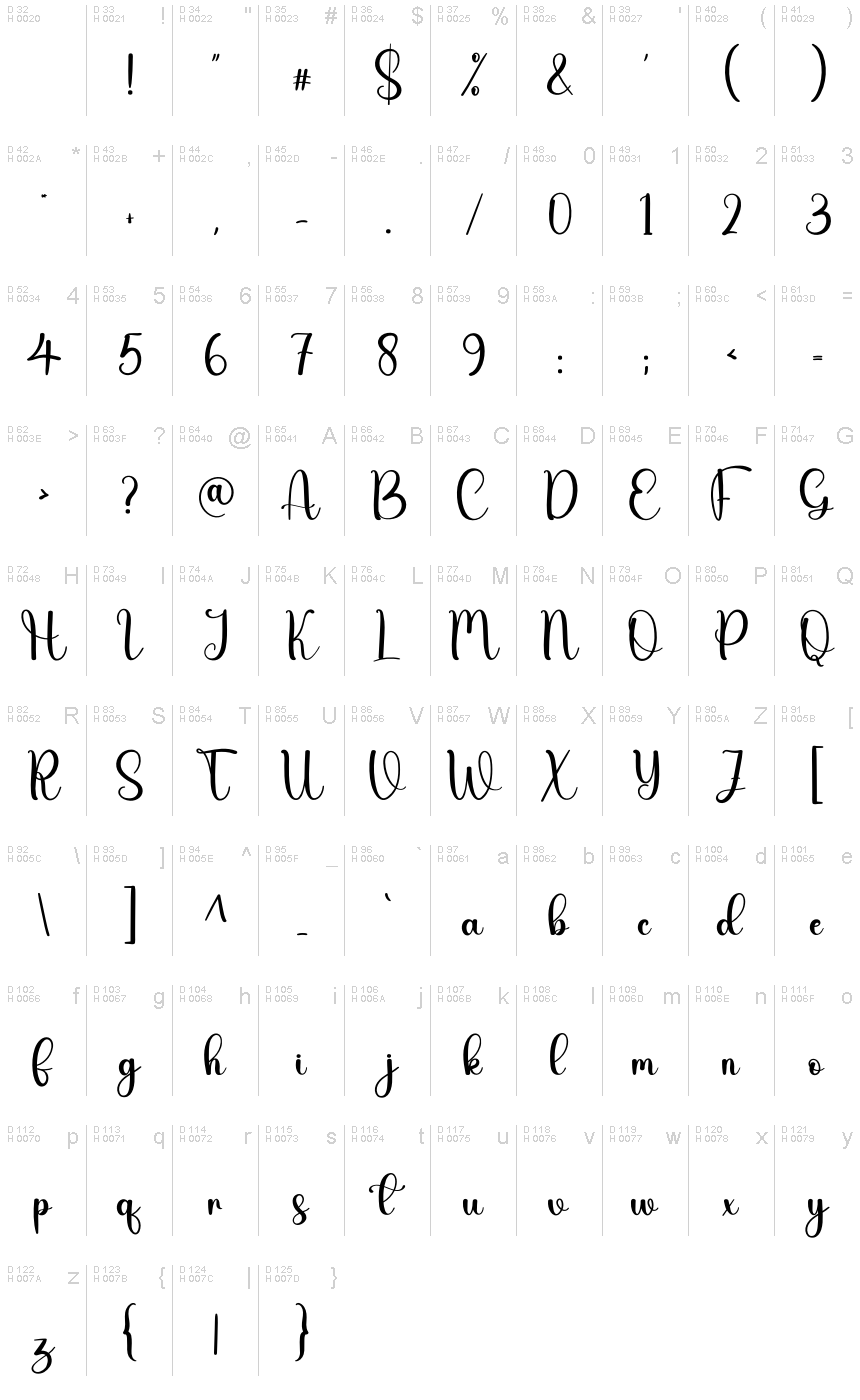
Candy
Candy, a mesmerizing calligraphy font by Harlek Studio, adds a touch of elegance to any project. Its semi-light weight gracefully glides across the page, creating a harmonious blend of curves and strokes.
Perfect for wedding invitations, Candy captures the romantic essence with its delicate letterforms. Its graceful flow makes it equally suitable for branding materials, adding a touch of sophistication and charm. Let your imagination run wild as Candy brings life to packaging designs, greeting cards, and even blog headers.
Embrace the sweetness of this enchanting font in all your creative endeavors.